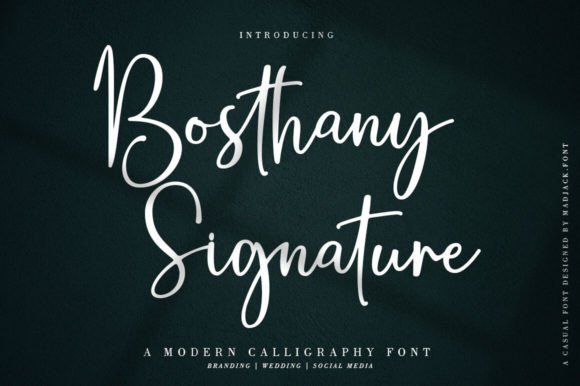
Bosthany Signature Font: Elevate Your Brand with a Modern and Attractive Typeface
In the world of typography, a signature font can make all the difference in establishing a brand’s identity. Bosthany Signature Font is a stunning, modern, and attractive typeface designed specifically for professionals looking to elevate their branding projects. This versatile font is perfect for a wide range of applications, from logos and branding to packaging, book covers, wedding invitations, and more.
The Power of Typography in Branding
Typography plays a crucial role in branding, as it can convey a message, evoke emotions, and create a lasting impression on the audience. A well-designed font can instantly elevate a brand’s image, making it more recognizable and memorable. Bosthany Signature Font is designed to help professionals create a strong brand presence, setting them apart from the competition.
What Makes Bosthany Signature Font Stand Out?
Bosthany Signature Font boasts a unique and captivating design, making it an excellent choice for professionals seeking a modern and attractive typeface. Here are some key features that set it apart:
- Modern Design: Bosthany Signature Font features a sleek and contemporary design, perfect for brands looking to make a statement.
- Attractive Typeface: The font’s elegant lines, curves, and shapes create a visually appealing typeface that grabs attention.
- Versatility: Bosthany Signature Font is suitable for a wide range of applications, from logos and branding to packaging, book covers, and more.
- Professional Look: The font’s clean and sophisticated design ensures a professional look and feel, perfect for businesses and individuals seeking to establish a strong brand presence.
Use Cases for Bosthany Signature Font
Bosthany Signature Font is an incredibly versatile typeface, making it suitable for various applications. Here are some use cases where this font truly shines:
- Logos: Create a stunning logo that represents your brand’s identity and values.
- Branding: Establish a strong brand presence with Bosthany Signature Font, perfect for business cards, letterheads, and more.
- Packaging: Elevate your product packaging with a modern and attractive typeface that grabs attention.
- Book Covers: Create eye-catching book covers that stand out on bookshelves and online platforms.
- Wedding Invitations: Add a touch of elegance and sophistication to your wedding invitations with Bosthany Signature Font.
- Printed Quotes: Create inspiring and visually appealing printed quotes that resonate with your audience.
- Merchandise: Design stunning merchandise, such as t-shirts, mugs, and more, with Bosthany Signature Font.
Tips for Using Bosthany Signature Font Effectively
To get the most out of Bosthany Signature Font, follow these tips:
- Pair it with Other Fonts: Experiment with font combinations to create a unique and visually appealing design.
- Use it Consistently: Apply Bosthany Signature Font consistently across all your branding materials to establish a strong brand presence.
- Adjust Font Size and Color: Play with font sizes and colors to create visual hierarchy and emphasize key messages.
- Experiment with Effects: Try adding effects, such as shadows or gradients, to give your text a creative and eye-catching look.
Bosthany Signature Font is a stunning, modern, and attractive typeface designed to elevate your brand’s presence. With its versatility, professional look, and captivating design, this font is perfect for a wide range of applications. By incorporating Bosthany Signature Font into your branding strategy, you’ll be able to create a strong and memorable brand identity that sets you apart from the competition.